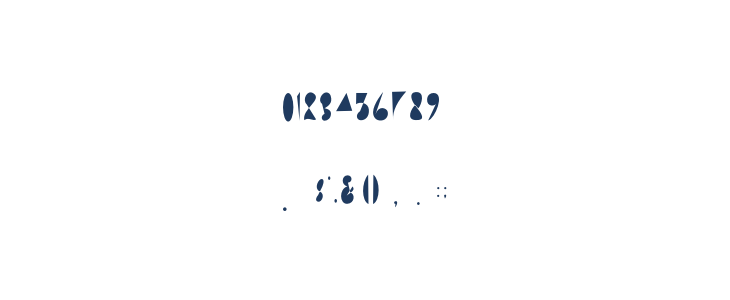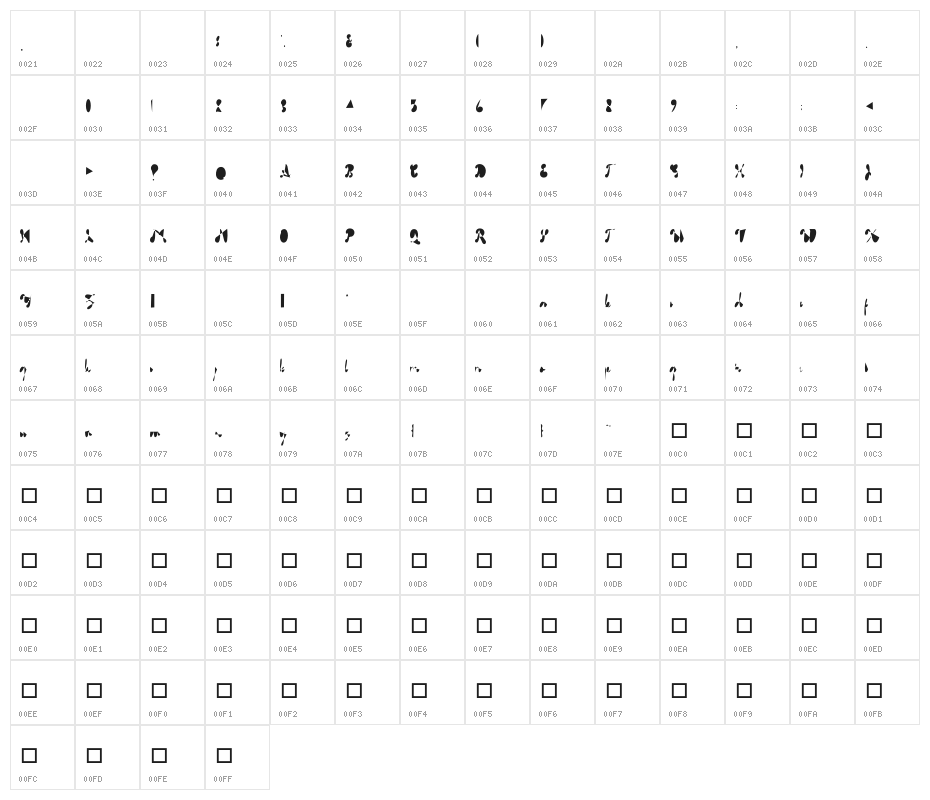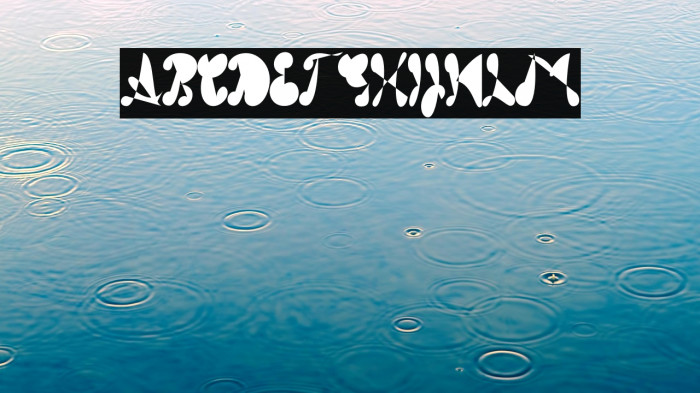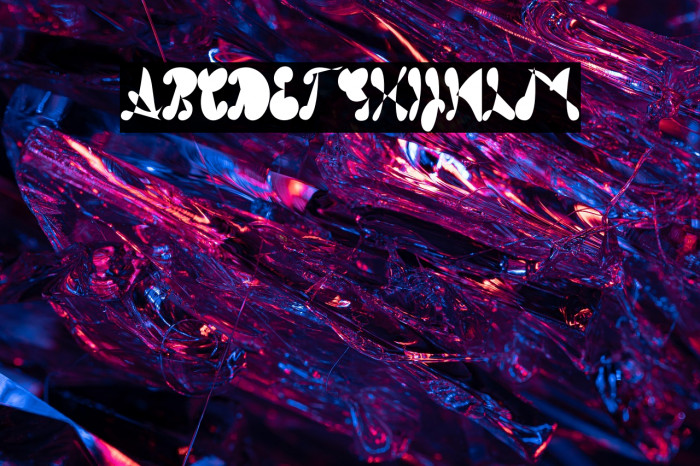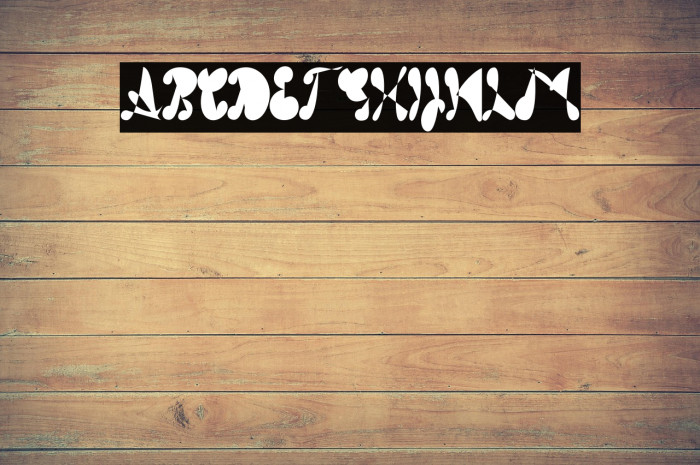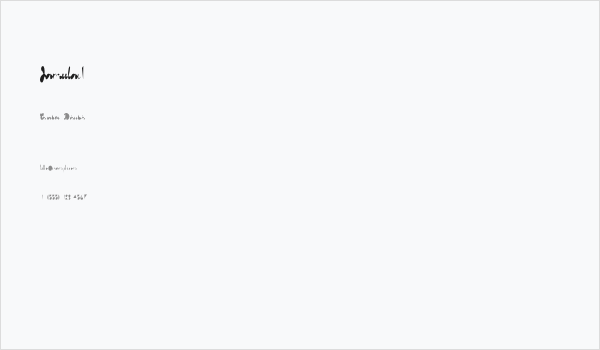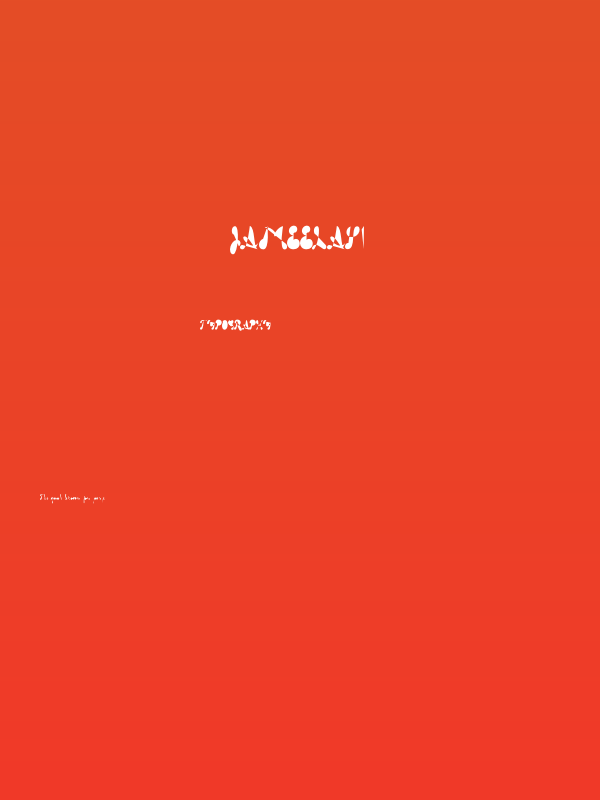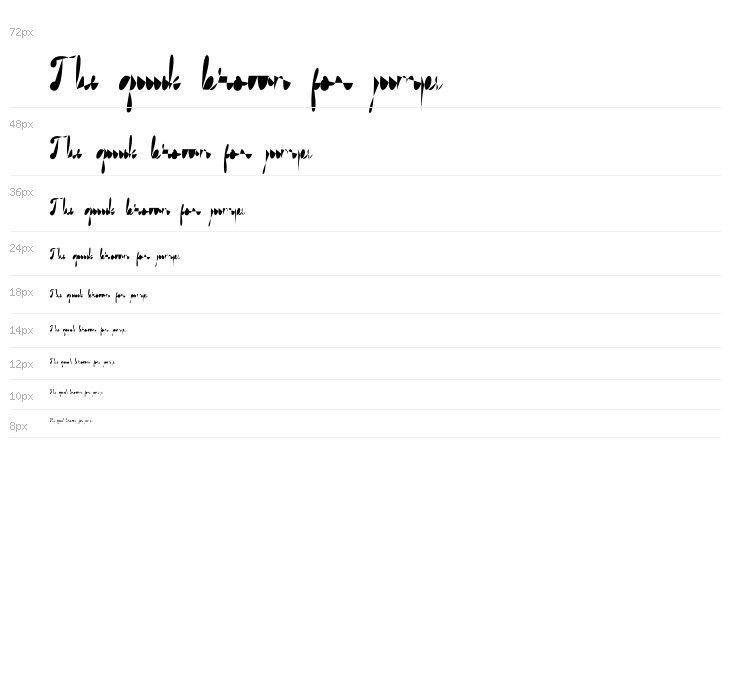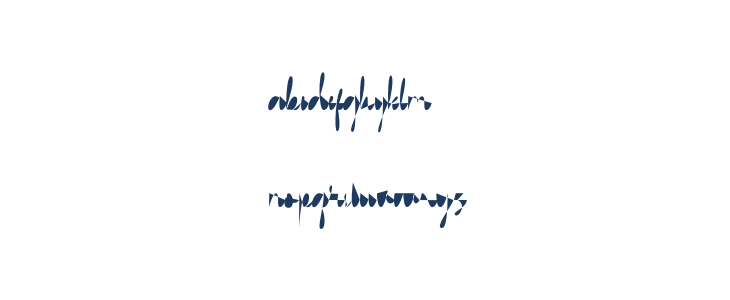
Jameelas1 Font
Jameelas1 Description
This font features a highly decorative and artistic style, characterized by its unique blend of bold and thin strokes. The uppercase letters exhibit a playful, almost whimsical design, with exaggerated curves and loops that create a sense of movement and fluidity. The lowercase letters maintain this fluidity but with a more refined and elegant touch, making them suitable for creative and artistic projects. The numbers and special characters continue the theme with distinctive shapes that stand out, adding to the font's overall artistic appeal. This font is ideal for projects that require a bold statement or a creative flair, such as posters, logos, or artistic invitations.
| Use Case | Logos, Artistic projects, Posters |
| Proposed Projects | Ideal for artistic posters, creative logos, and unique invitations. |